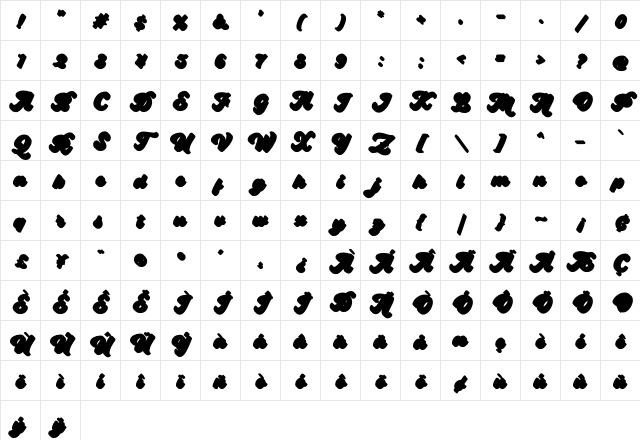
Bayland Extrude Free Font
Bayland Extrude
Style: Extrude
Foundry: Letterhend Studio
Designer: Letterhend Studio
Design Context for Bayland
Bayland is a composed and adaptable typeface that performs quietly and consistently across a wide range of design contexts.